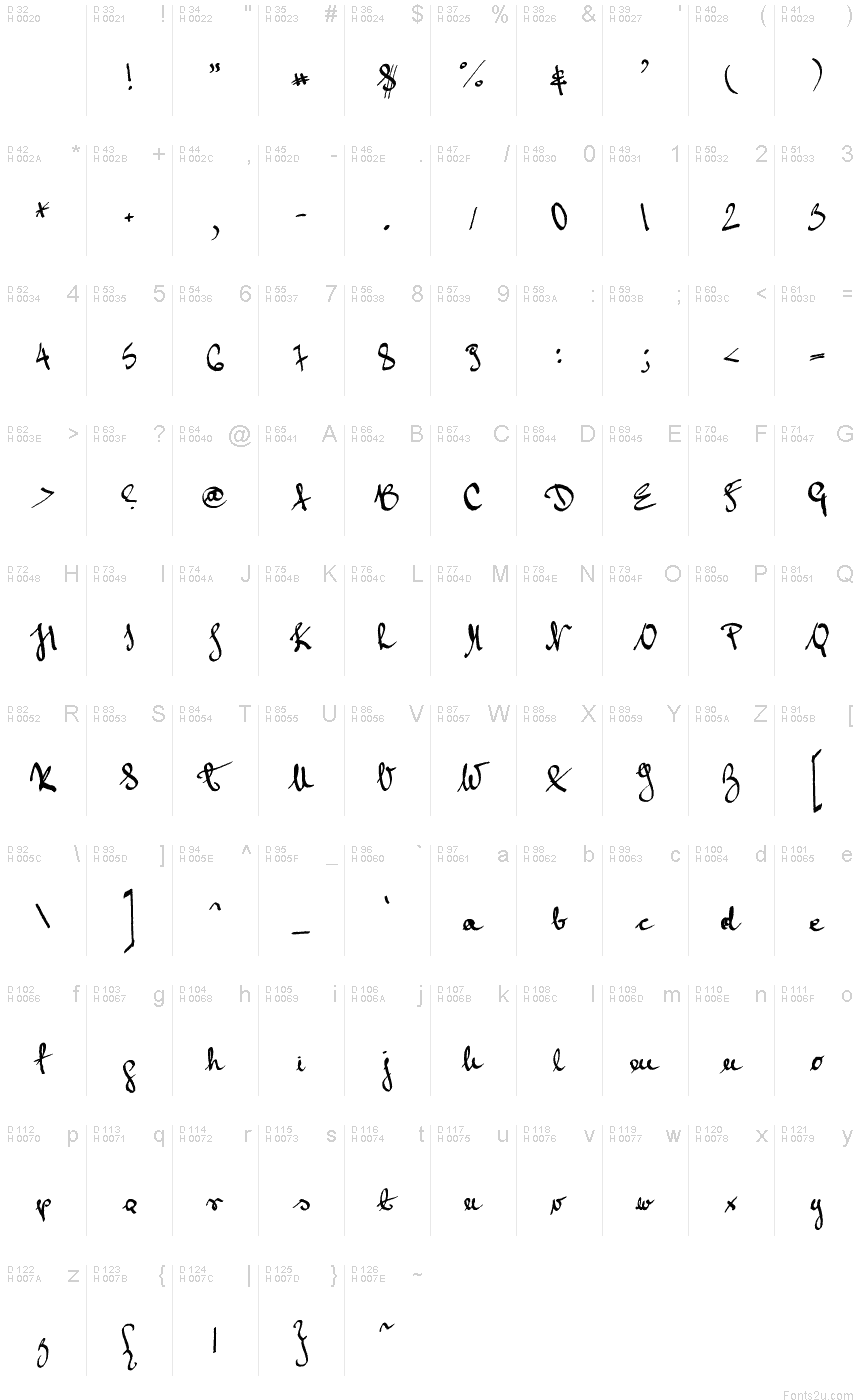
Grand Duchess by Aga Silva is a free brush script with a restless, fashion-forward hand, pronounced slant, long sweeps, blunt endings, and sharp changes between inky downstrokes and fine, quick joins. Uneven letter heights keep it visibly unrehearsed.
Independent fashion and beauty brands can use its signature-like marks across product packaging, campaign graphics, launch invitations, and boutique signage. The same rapid strokes also suit expressive album artwork, linking these applications through personal, dramatic lettering far removed from the more conventional polish of anonymous corporate typography.